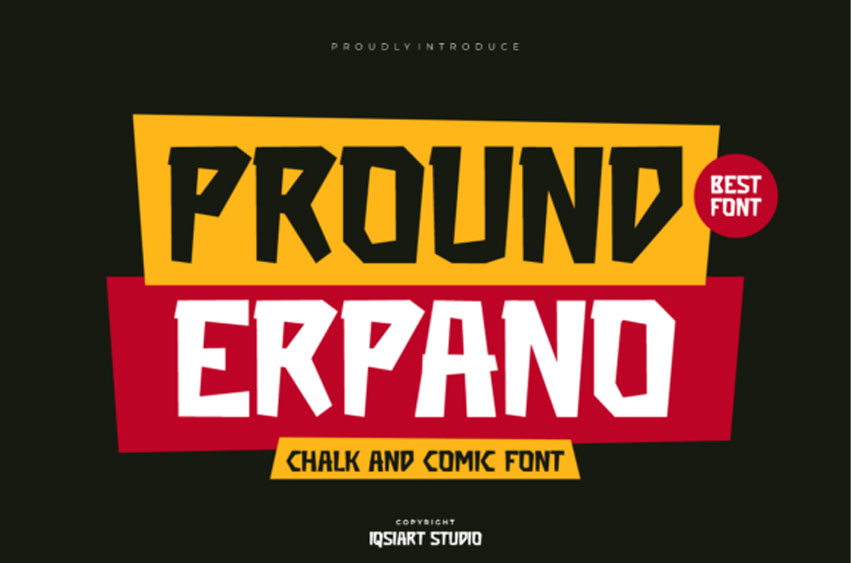
Pround Erpano Font
Pround Erpano Font is a bold and quirky chalk-style font with a comic book twist. Its edgy letterforms and punchy aesthetic make it perfect for fun titles, eye-catching posters, school projects, or energetic branding.
Whether you’re creating a superhero-themed graphic or playful signage, this font adds personality and power to your text.